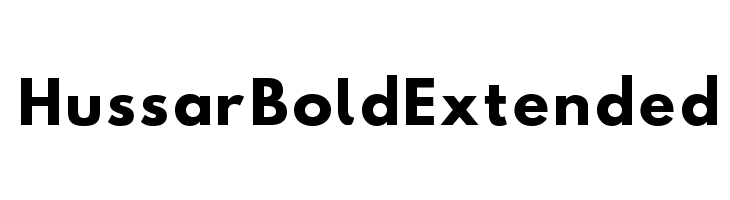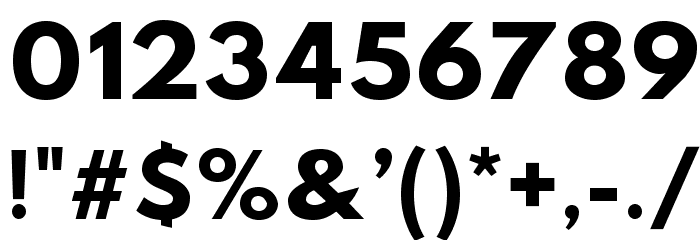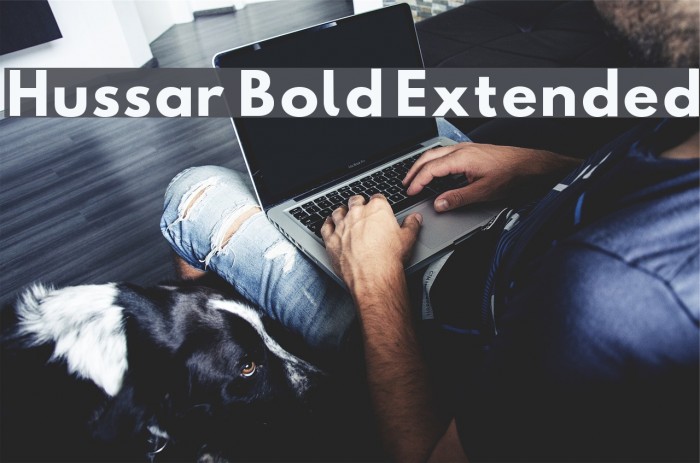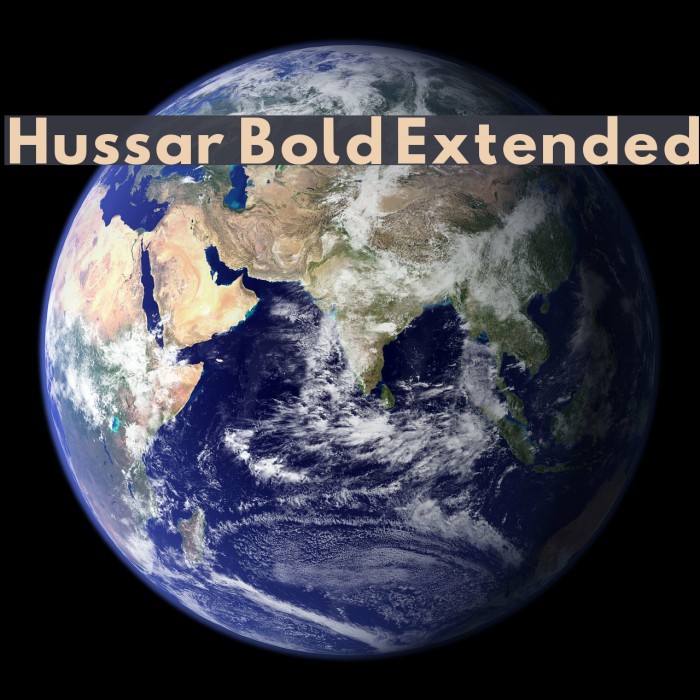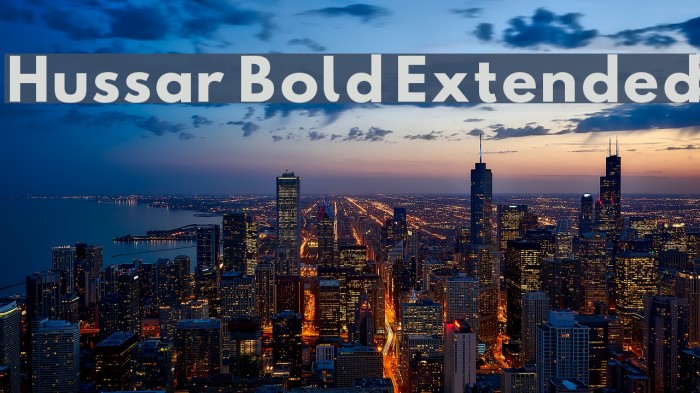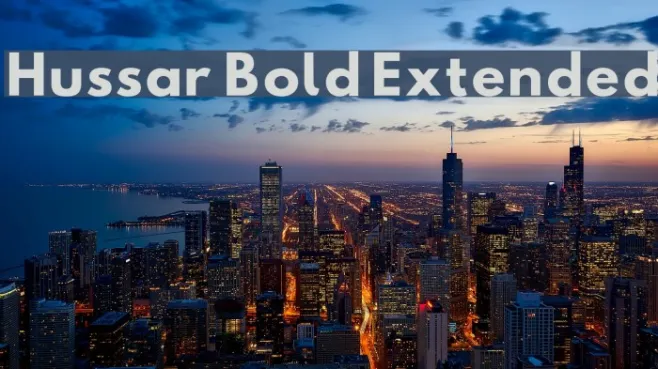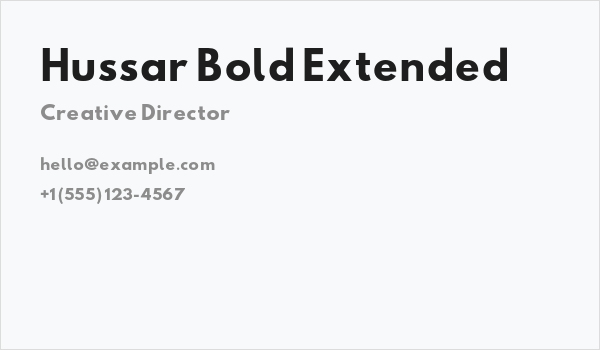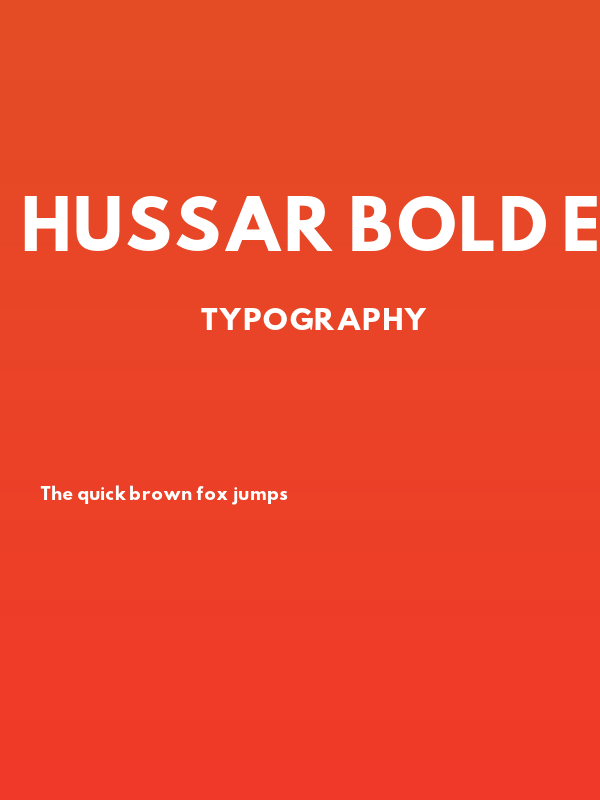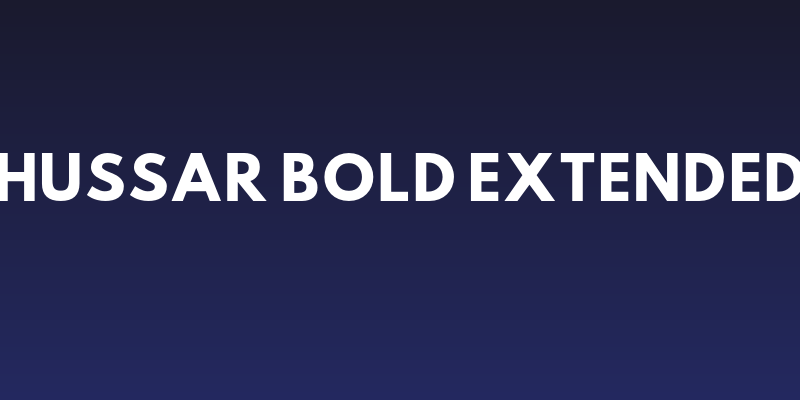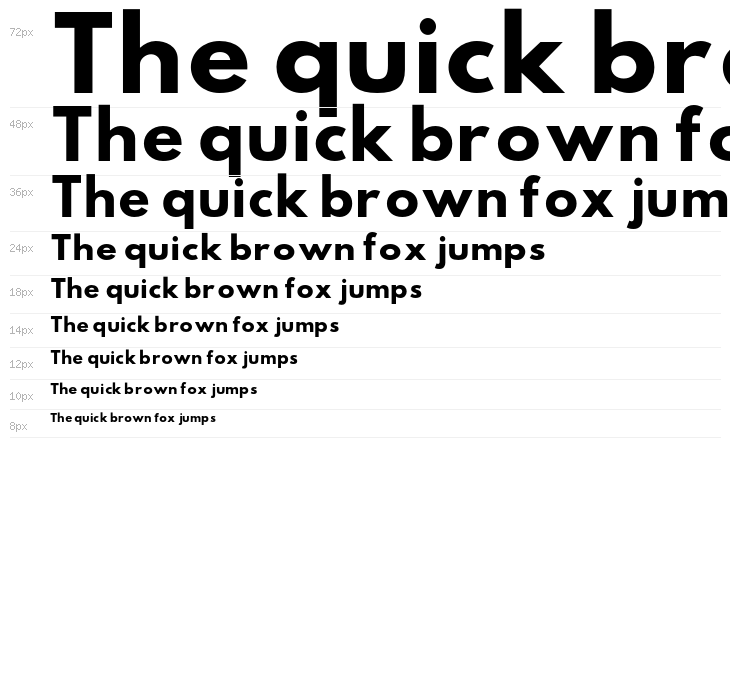
Hussar Bold Extended Font
Hussar Bold Extended Description
This font features a bold and extended style with a strong presence. The uppercase and lowercase letters are well-defined, with a geometric and modern aesthetic. The characters are evenly spaced, providing a clean and organized appearance. The numbers are consistent with the letterforms, maintaining the bold and extended characteristics. Special characters are included, offering versatility for various design needs. The overall design is sleek and contemporary, making it suitable for a wide range of applications.
| Proposed Projects | Ideal for headlines, posters, branding, and advertising materials where a strong and modern impression is desired. |